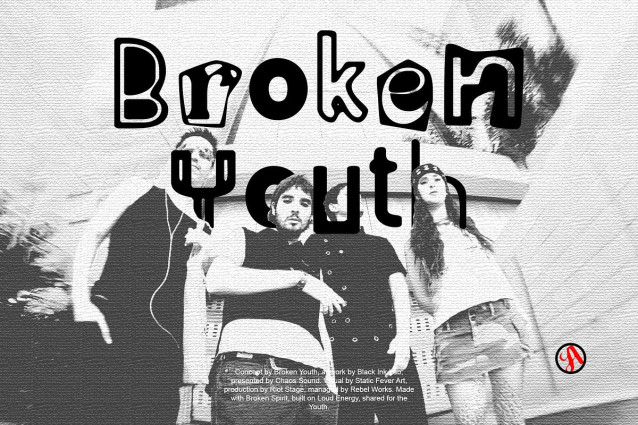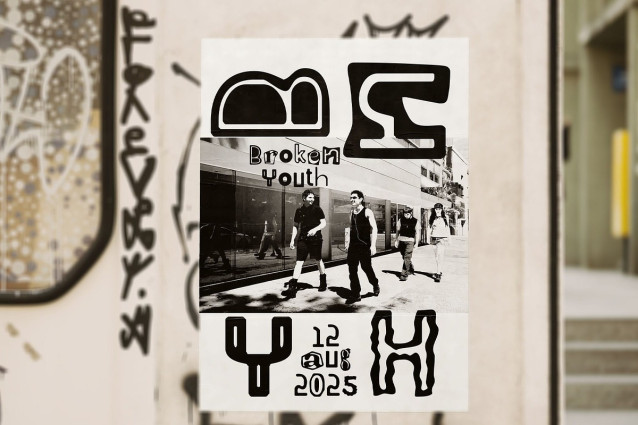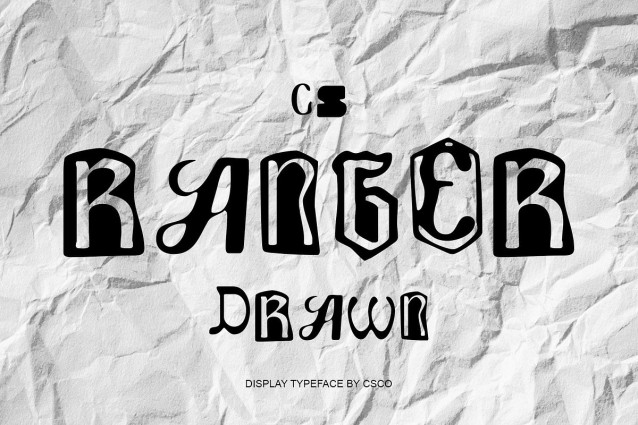
CS Ranger Drawn Font
CS Ranger Drawn Font – This is a ransom display font like collage style that captures the spirit of chaos and rebellion. Its cut-and-paste shapes create a fragmented yet striking rhythm across the page, instantly grabbing attention. Each character feels raw and unrefined, echoing the aesthetic of ransom notes while adding an artistic, hand-drawn edge.
Chaotic Forms for Bold Drama The uneven cuts and mismatched shapes give a sense of unpredictability. Instead of polished precision, the font thrives on disorder, turning irregularity into a design statement. This chaotic construction adds dramatic flair, making it a natural fit for posters, activist campaigns, and designs that demand a rebellious mood.
Drawn Texture for Artistic Personality While inspired by ransom-style collages, the drawn texture infuses warmth and authenticity into its forms. The hand-drawn touch keeps it from feeling mechanical, transforming each letter into a piece of visual art. This unique texture enhances its appeal in creative projects, giving it a handmade quality that resonates with edgy.
Versatile for Expressive Design This font unconventional style is not for the faint of heart but that is its power. Perfect for album covers, cultural branding, and editorial layouts, it thrives in contexts where disruption is celebrated. Designers can use it to amplify messages of defiance, independence, and artistic individuality. With this font, chaos becomes creativity, and disorder becomes design.